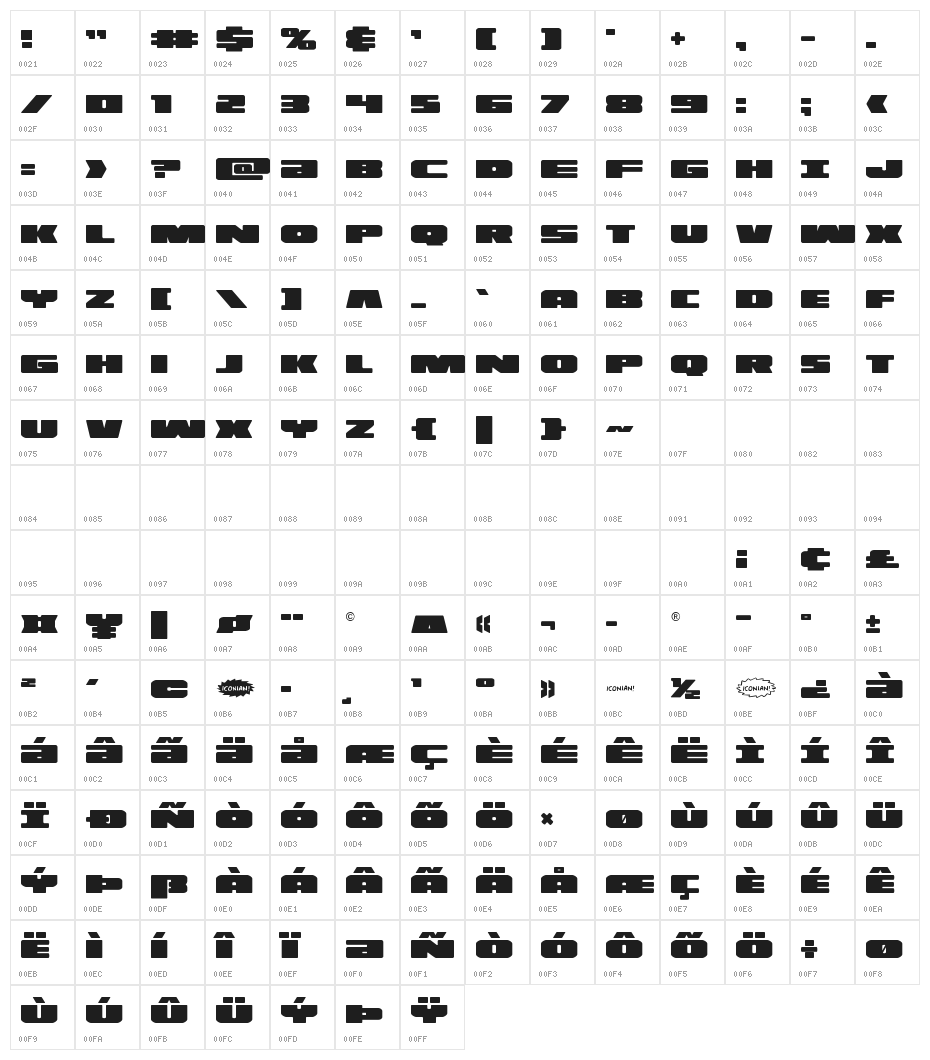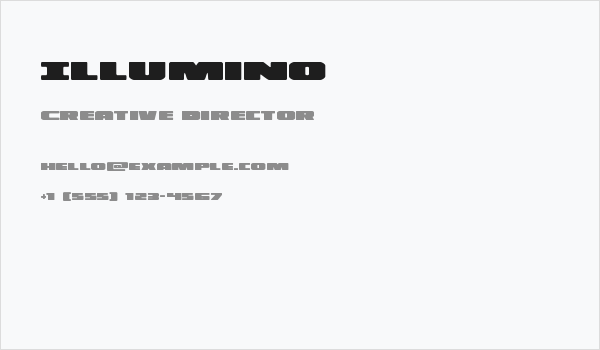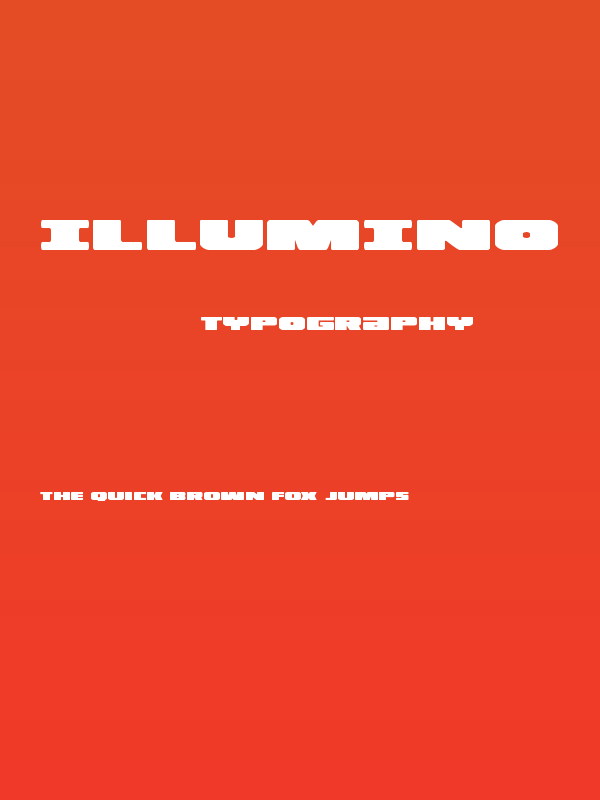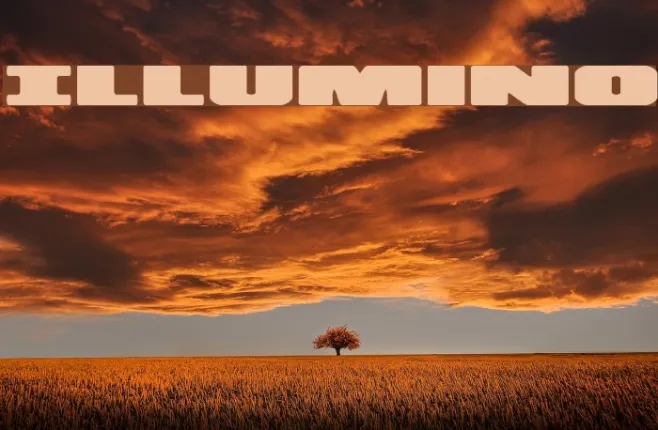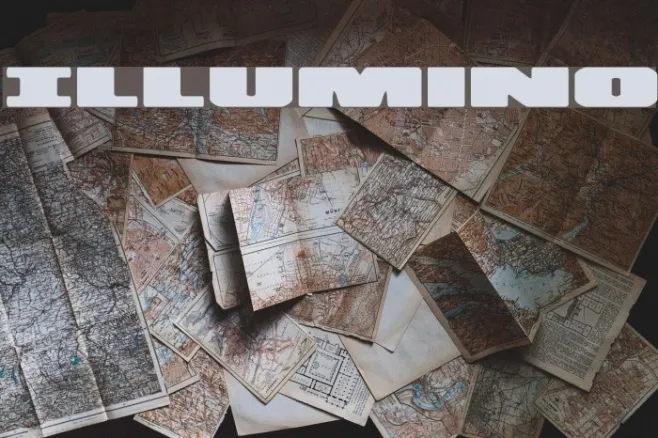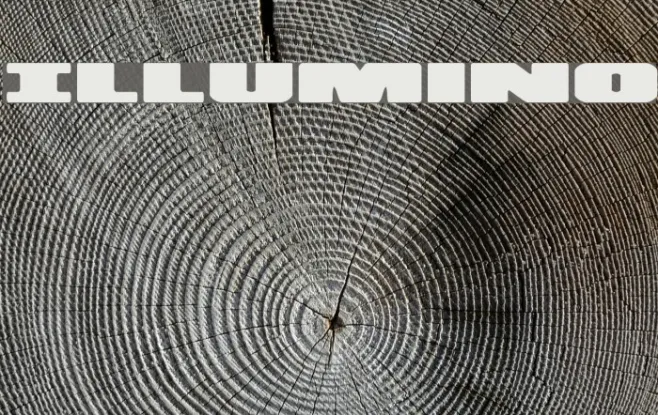
Illumino Font
Illumino Description
This font features a bold, geometric design with a strong presence. The characters are constructed with thick, block-like shapes that convey a sense of strength and modernity. The uppercase letters are uniform in height, creating a cohesive look across the alphabet. The numbers and special characters maintain the same bold style, ensuring consistency throughout. The font's design is highly legible, making it suitable for impactful headlines and attention-grabbing displays. Its robust structure and clean lines make it ideal for projects that require a modern and assertive aesthetic.
| Proposed Projects | Ideal for branding, posters, headlines, and any design requiring a bold statement. |